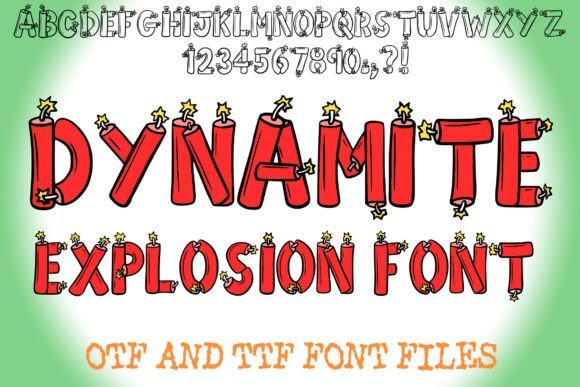
Dynamite Explosion Font: Igniting Your Designs
Remember that moment when you stumbled upon the perfect font, and suddenly, your entire project came together? For designers, it’s a moment of pure joy and relief. But what if you could have that feeling more often? Introducing the Dynamite Explosion Font, a quirky yet versatile font that’s sure to ignite your designs.
This PNG type font is designed to be used in a wide variety of contexts, from bold headlines to subtle text overlays. Its unique aesthetic makes it a valuable asset for designers looking to add a touch of excitement to their work. Whether you’re working on a project that needs a bit of flair or a consistent brand identity, the Dynamite Explosion Font is sure to deliver.
- Unique Characteristics: The Dynamite Explosion Font features a dynamic, explosive design with bold lines and vibrant colors, perfect for creating eye-catching headlines and titles.
Dynamite Explosion Font Review
The Dynamite Explosion Font is a font that’s sure to grab your attention, with its bold, explosive style ✨. The font’s creators have done a great job of capturing the dynamic energy of a real explosion, making it perfect for use in headings, titles, and any other text where you want to convey a sense of excitement and drama.
- The font’s bold, 3D-like design ✨ makes it perfect for use in action-packed scenes, like video games or action movies.
- The font’s unique, hand-drawn style ✨ adds a touch of personality to any design project.
However, there are a few limitations to consider ⚠️:
- The font may be too overpowering for smaller text sizes, making it difficult to read.
- The font’s bold design may not be suitable for use in professional or formal settings, where a more subtle font is preferred.
Overall, the Dynamite Explosion Font is a fun and energetic font that’s perfect for use in action-packed designs. While it may have some limitations, its unique style and bold design make it a great choice for anyone looking to add some excitement to their project.
Getting the Most Out of the Dynamite Explosion Font
Use the Dynamite Explosion font to add a touch of drama and excitement to your designs. Some tips for getting the most out of it include:
- Using it sparingly to create emphasis.
- Pairing it with bold or italic fonts for contrast.
- Experimenting with different font sizes and colors.
The Dynamite Explosion font is perfect for:
- Creating attention-grabbing headlines.
- Designing dramatic movie